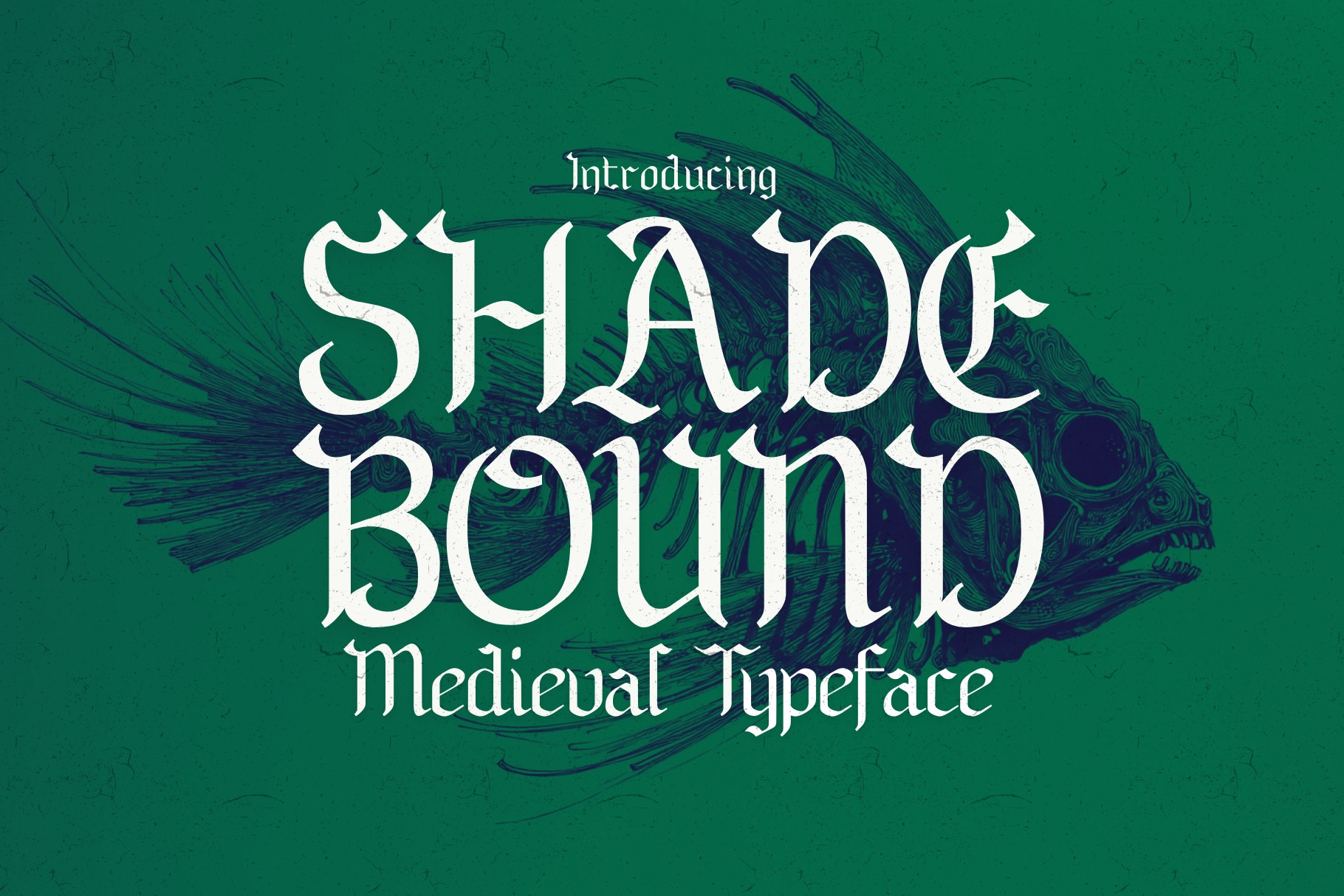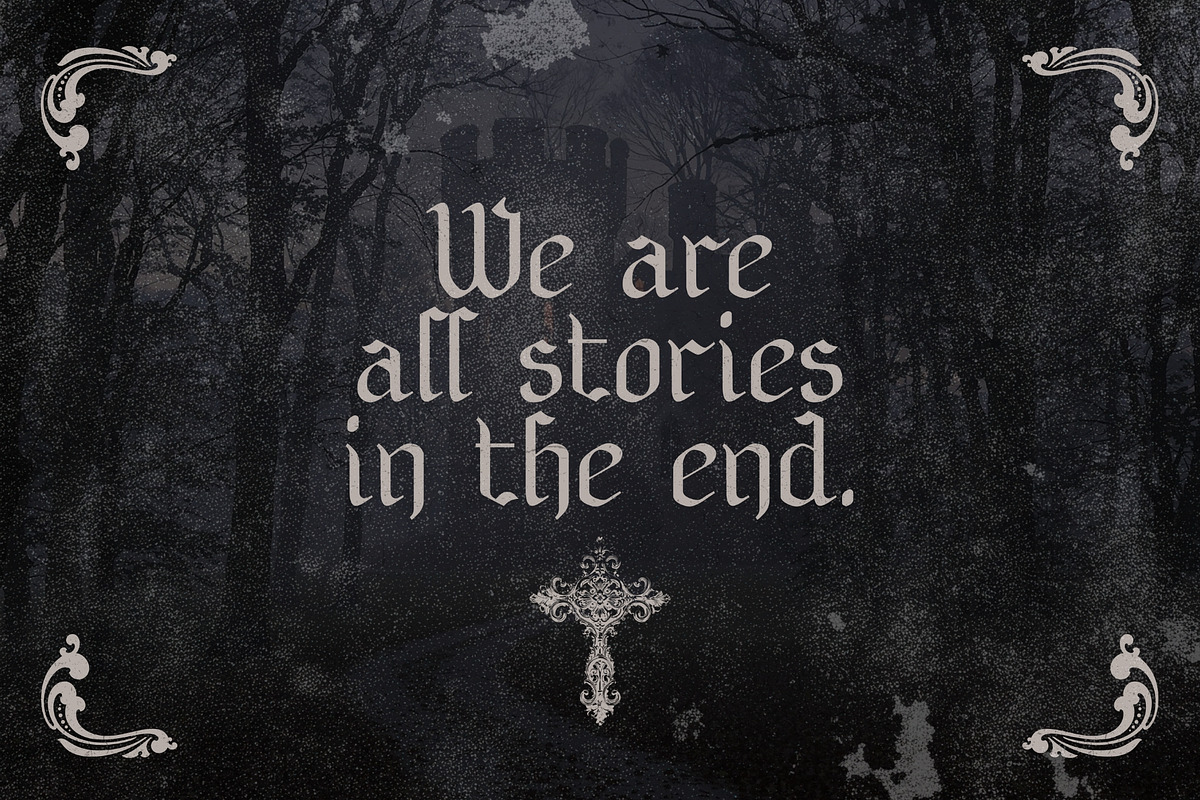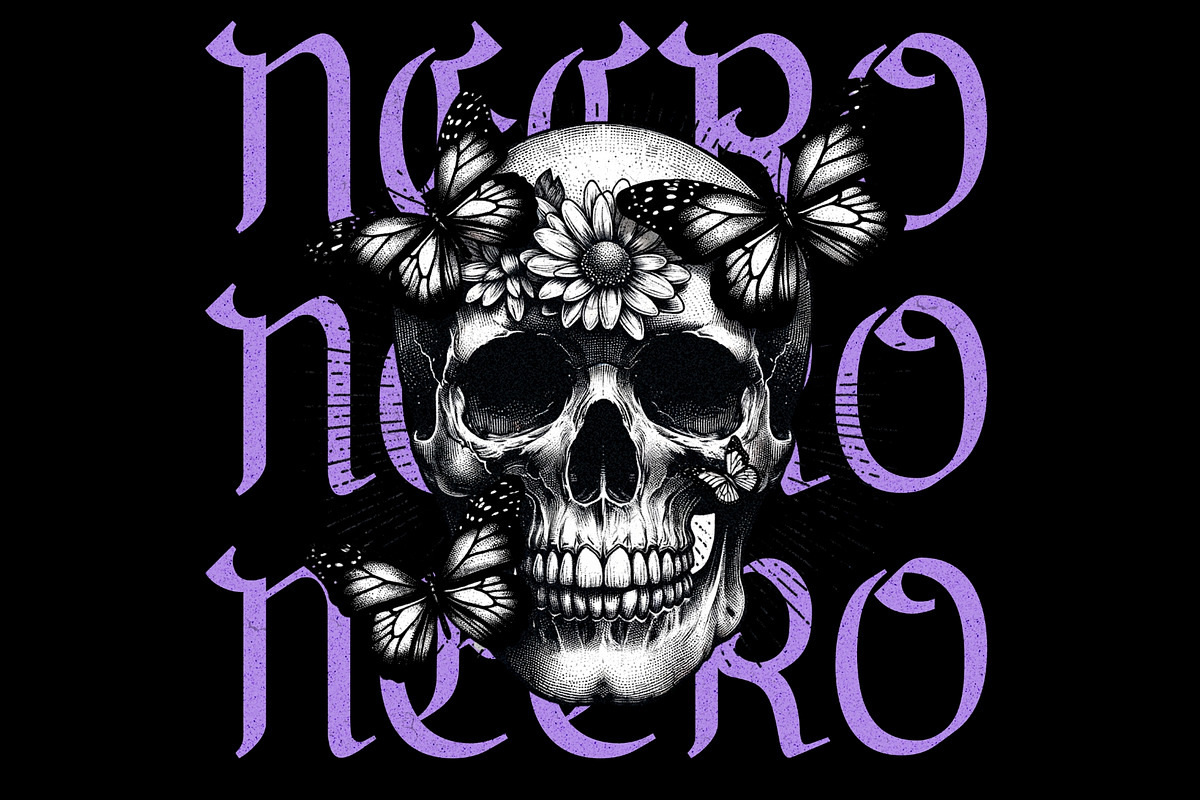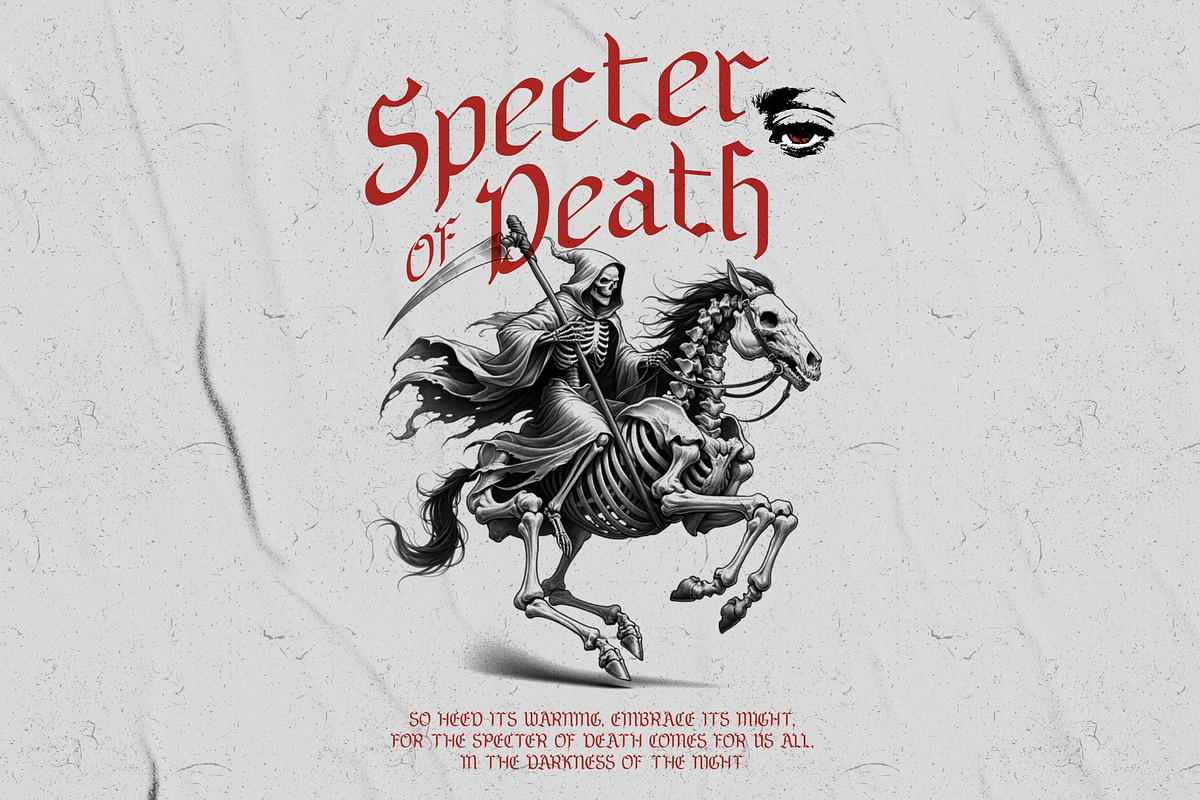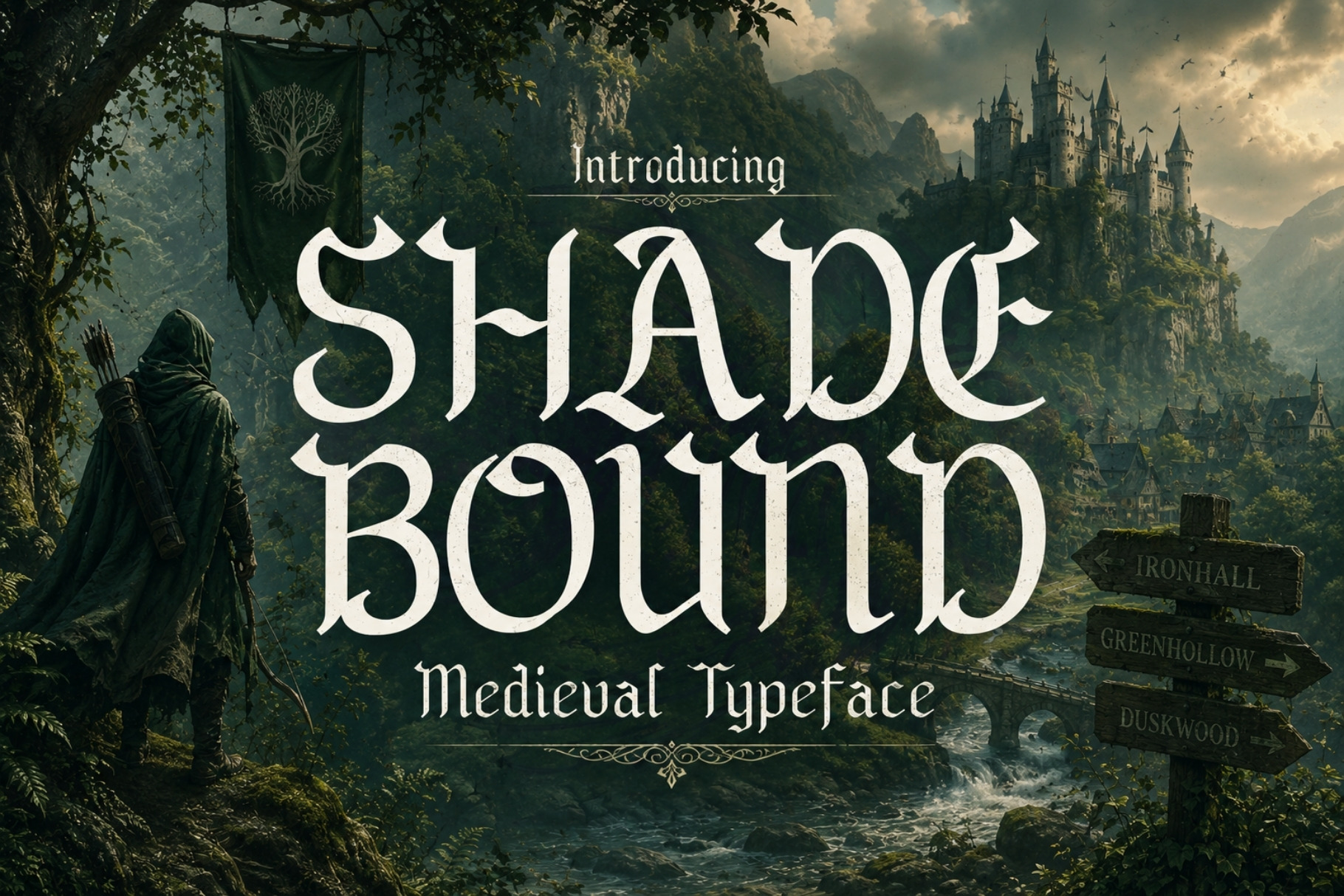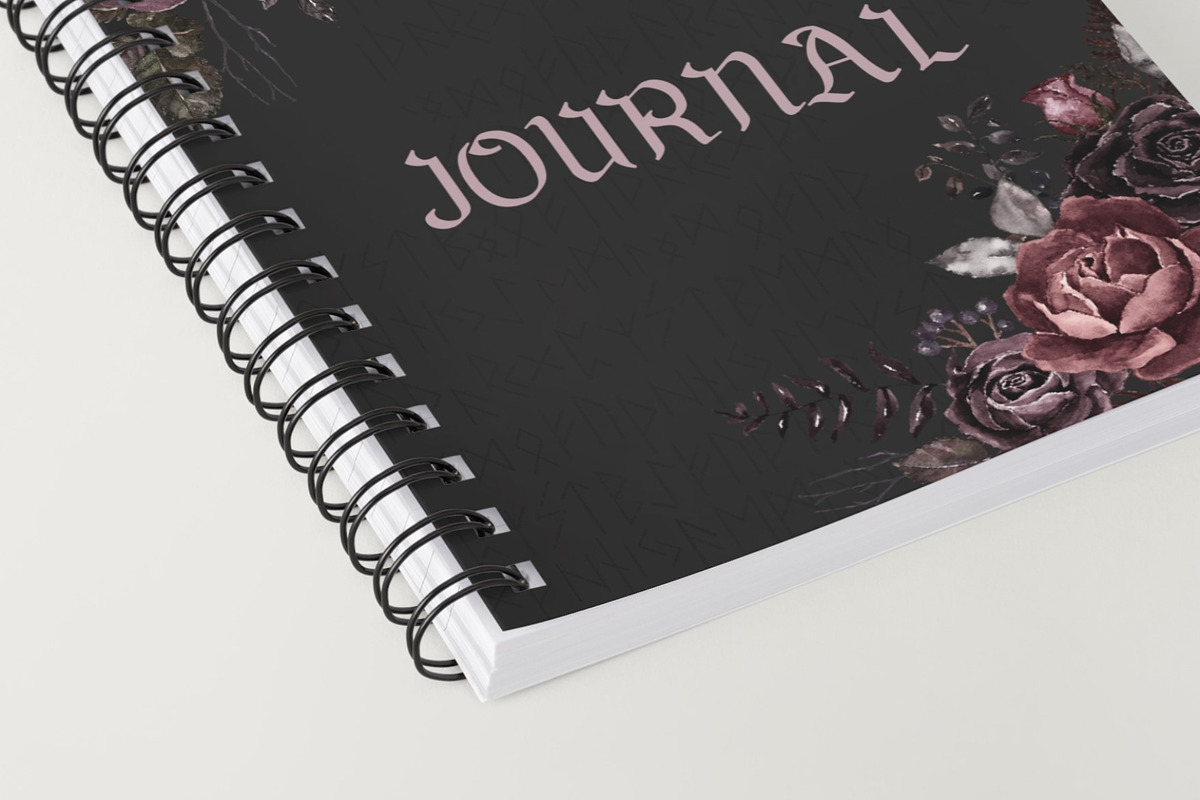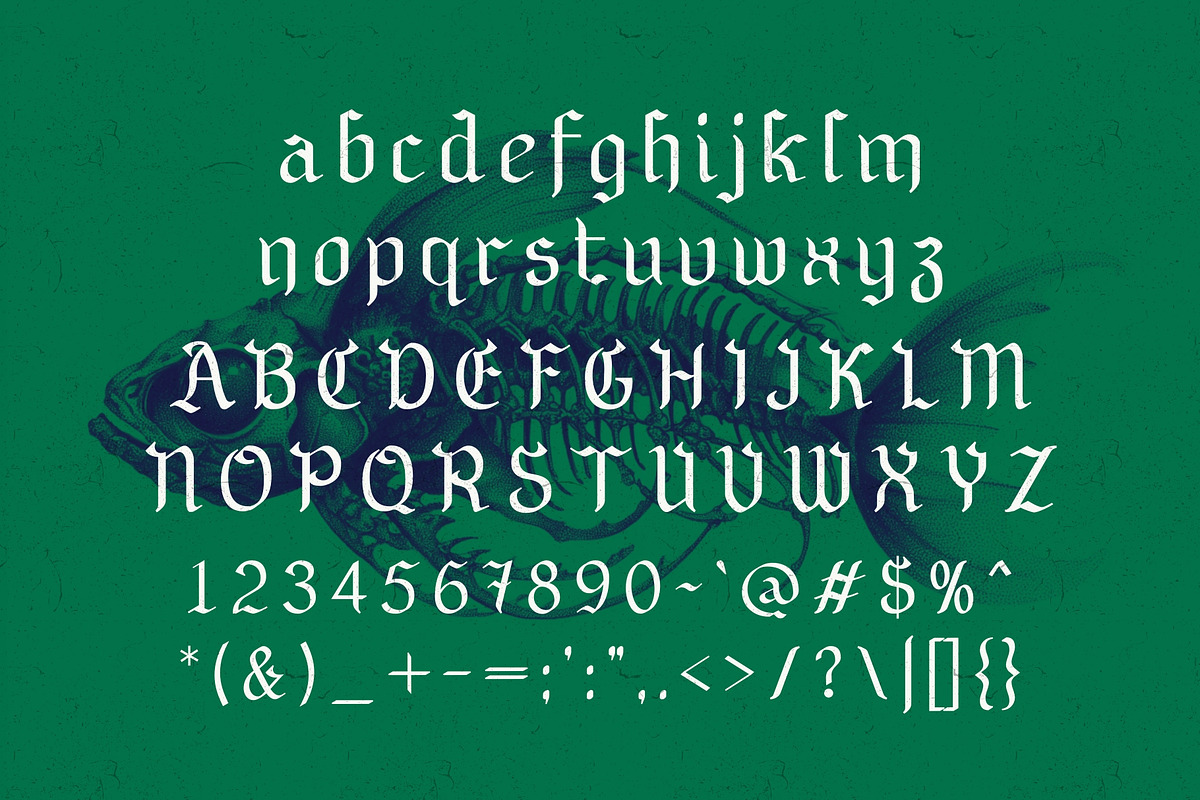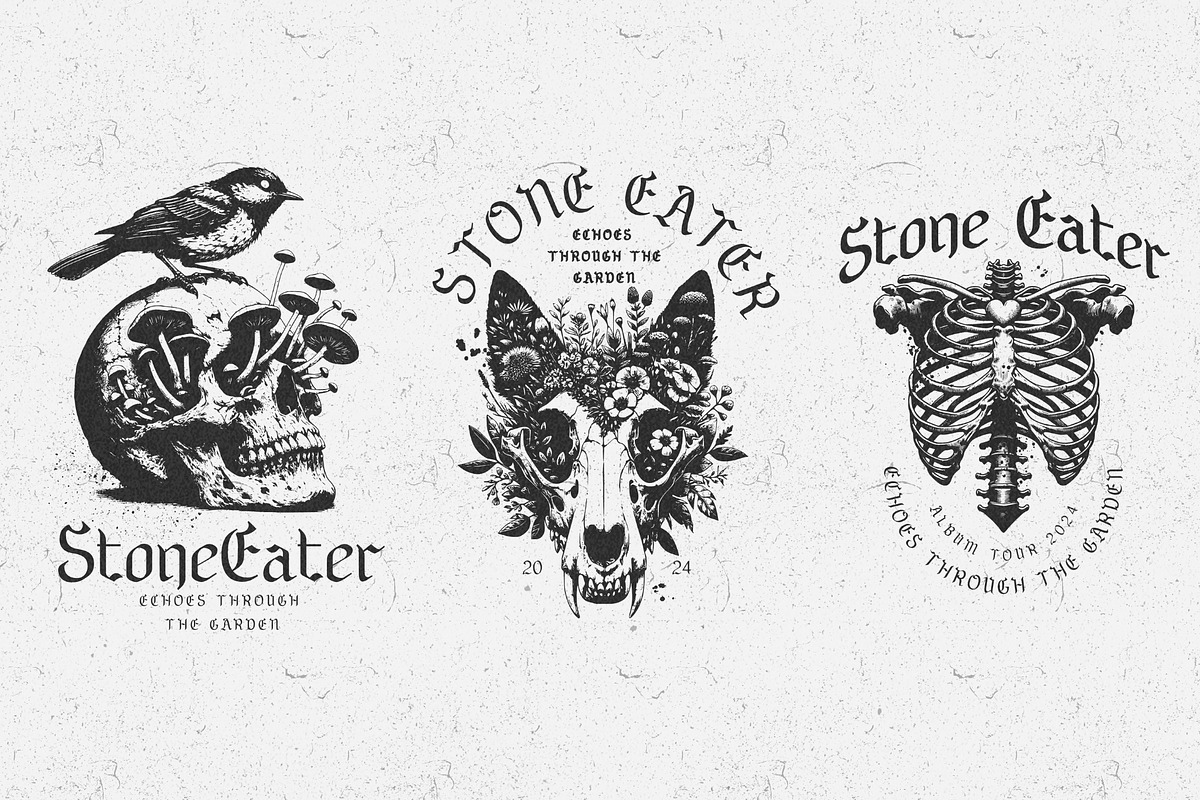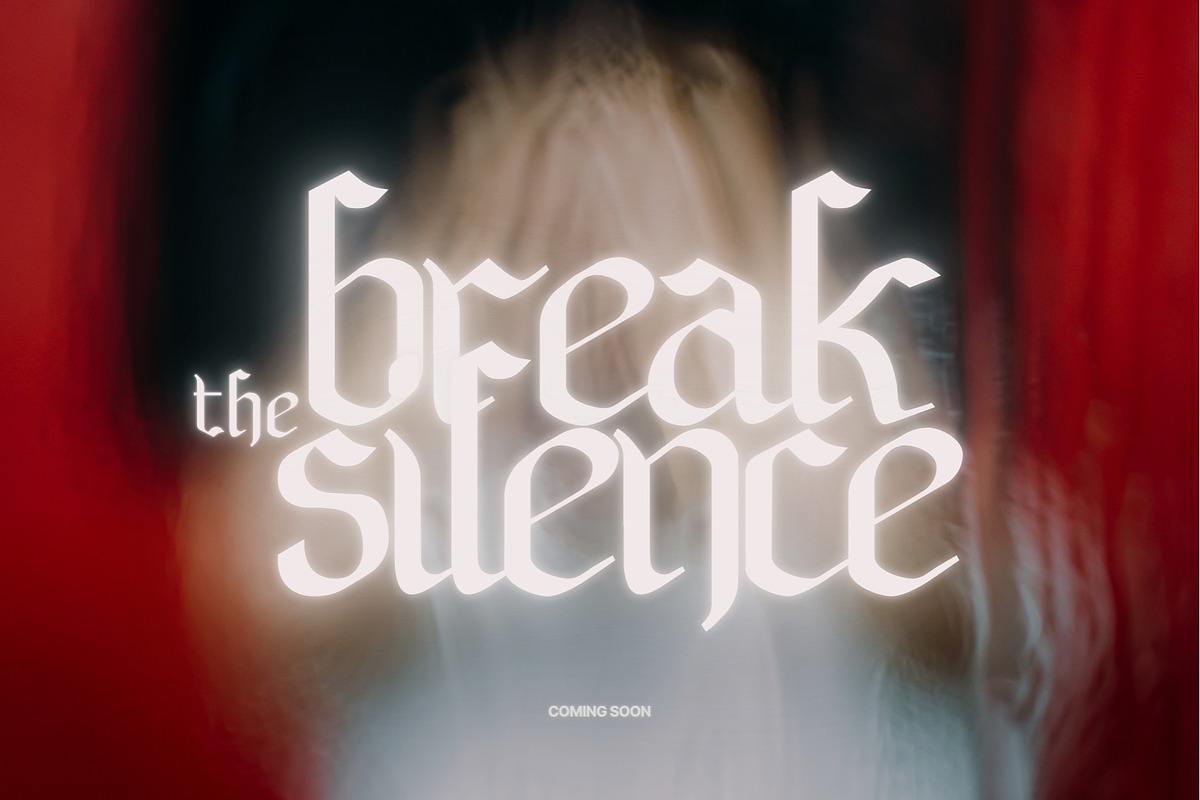
Shadebound - Gothic Brush Typeface
Enter the shadowed halls of history with Shadebound, a breathtaking medieval Gothic typeface forged in the spirit of old-world calligraphy. Echoing the solemn beauty of ancient manuscripts and the eerie grandeur of cathedral engravings, Shadebound evokes a bygone era where every letter was a sacred art.
Crafted to resemble hand-painted brushwork, each character in Shadebound feels alive, rich with texture, drama, and soul. This is not just a font; it’s a visual incantation, summoning the essence of Gothic tradition with modern precision.
With 197 glyphs and support for 65 languages, Shadebound empowers creators around the world to embrace the power of the past. Perfect for book covers, fantasy titles, band logos, posters, game interfaces, or anything seeking a dark, noble, or mystical aesthetic.
Let Shadebound be your weapon of choice when you need to make a bold, eternal mark.